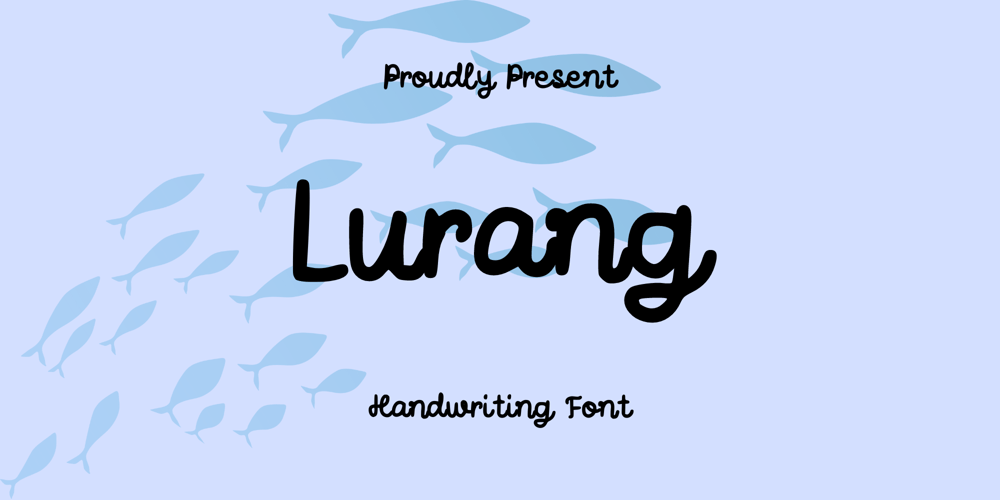
Lurang
Lurang font
Lurang Font Family was designed by published by Sidkia Fonts. Lurang contains 1 styles and family package options. Lurang is a romantic and sweet calligraphy typeface with characters that dance along the baseline. It has a casual, yet elegant touch.